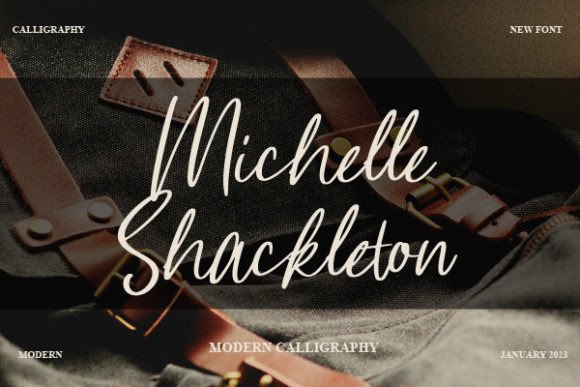
Introducing Michelle Shackleton Font - An Exquisite Handwritten Masterpiece That Will Transform Your Creative Endeavors!
Journey into a realm of elegance and sophistication with Michelle Shackleton Font, an enchanting handwritten script that's destined to captivate design enthusiasts. This mesmerizing font family, brought to life by the talented fiqiart, seamlessly blends timeless calligraphy with a modern, captivating aesthetic. Get ready to elevate your projects to unprecedented heights with Michelle Shackleton Font!
Michelle Shackleton Font - The Epitome of Style and Grace
Prepare to be mesmerized by the captivating beauty of Michelle Shackleton Font. Its graceful curves and meticulously crafted characters will infuse your designs with a touch of timeless elegance. Whether you're crafting stunning social media posts for Instagram, creating enchanting invitations, or designing breathtaking logos, Michelle Shackleton Font will effortlessly elevate your creations.
Unlock Your Creative Potential with Michelle Shackleton Font
Unleash your creativity and explore endless possibilities with Michelle Shackleton Font. Its versatility knows no bounds, adapting seamlessly to a multitude of design styles. Embrace the allure of handwritten typography and watch as your projects blossom into masterpieces. From delicate wedding invitations to captivating social media graphics, Michelle Shackleton Font will effortlessly transform your vision into reality.
Michelle Shackleton Font - A Love Story in Every Stroke
Fall head over heels in love with the enchanting allure of Michelle Shackleton Font. Its carefully crafted characters dance across the digital canvas, evoking emotions and captivating hearts. Prepare to be swept off your feet as you witness the transformative power of this font. Experience the joy of creating designs that resonate with your audience, leaving an indelible mark on their memories.
Indulge in Typographic Bliss with Michelle Shackleton Font
Treat yourself to the ultimate typographic indulgence with Michelle Shackleton Font. Say goodbye to limitations and embrace a world of boundless creativity. Let your imagination soar as you explore the depths of this exquisite font family. Witness the metamorphosis of your designs as they transcend the ordinary and enter the realm of extraordinary.